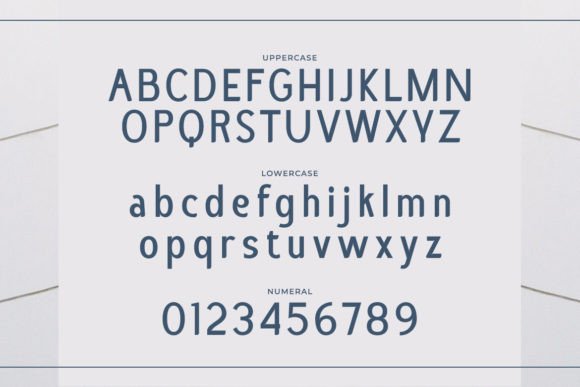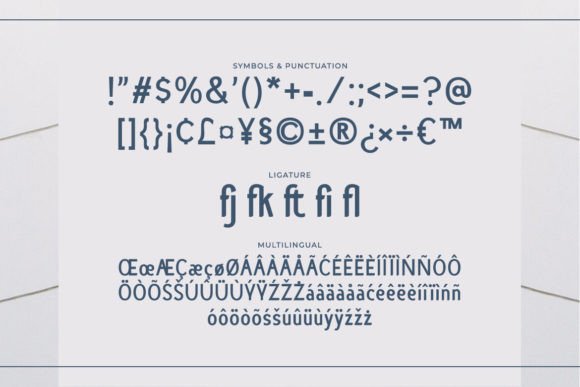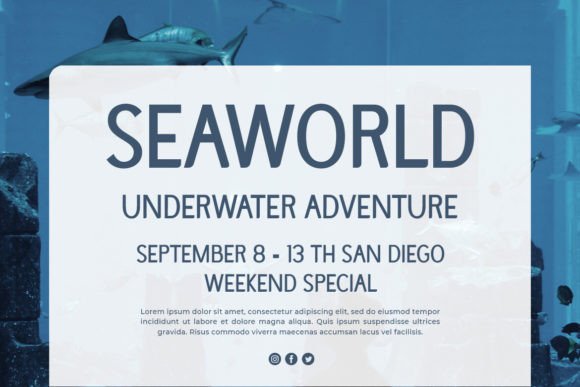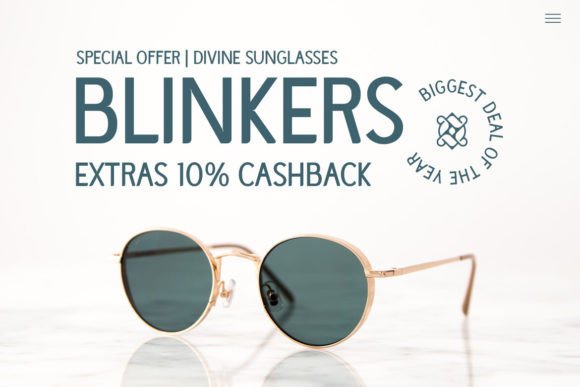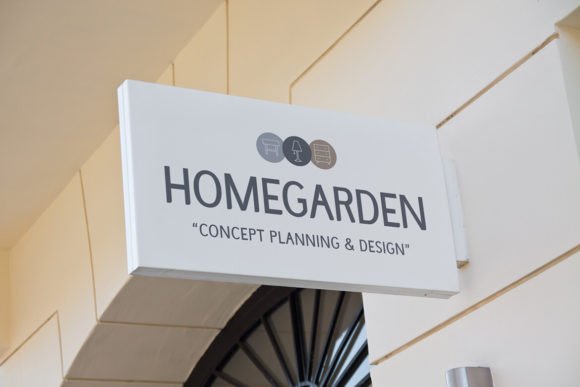
Introduction to Noach Font
Introducing “Noach” – a versatile sans serif typeface that combines simplicity with contemporary design.
Embrace the versatility of “Noach” as it seamlessly adapts to various visual contexts Whether you’re creating sleek headlines, professional logos, clean interfaces, or engaging social media graphics, this typeface will bring a touch of sophistication and professionalism to your designs.